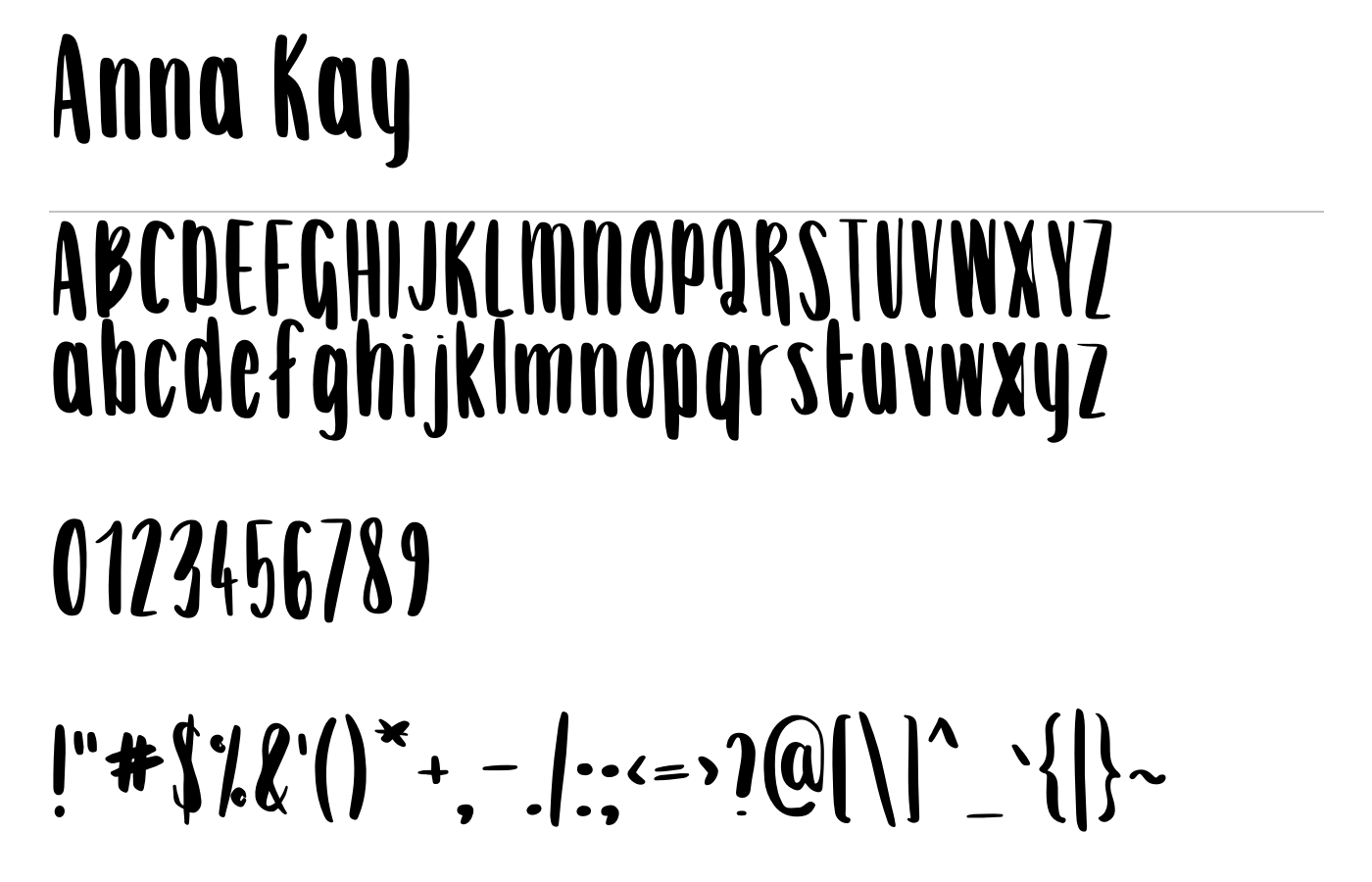
Anna Kay is a playful and tall sans serif font with a hand-drawn feel, featuring elongated letterforms and a slightly uneven stroke that adds personality and warmth. Its casual, quirky style with high x-height and narrow width makes it perfect for creative projects, informal headlines, or branding that seeks a friendly and approachable vibe. This font works well in designs that want to convey fun, creativity, and individuality.
Anna Kay Font
About Anna Kay Font